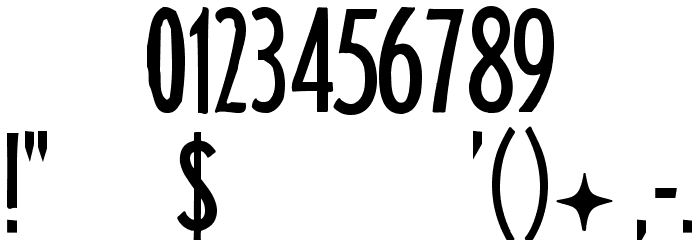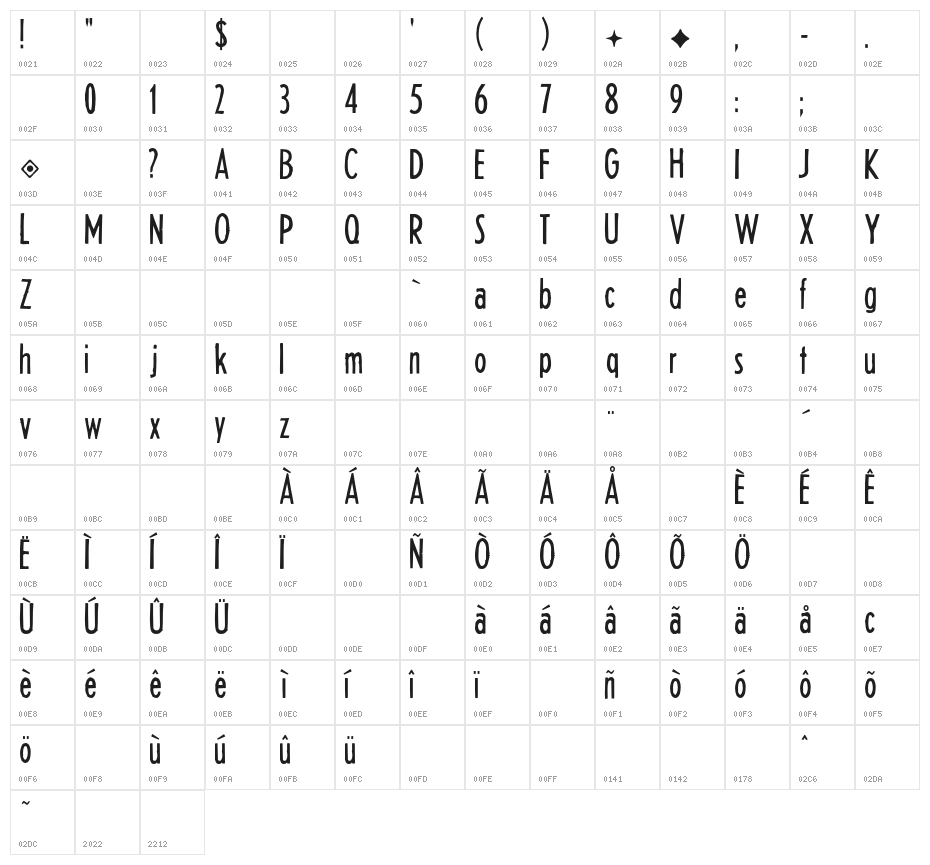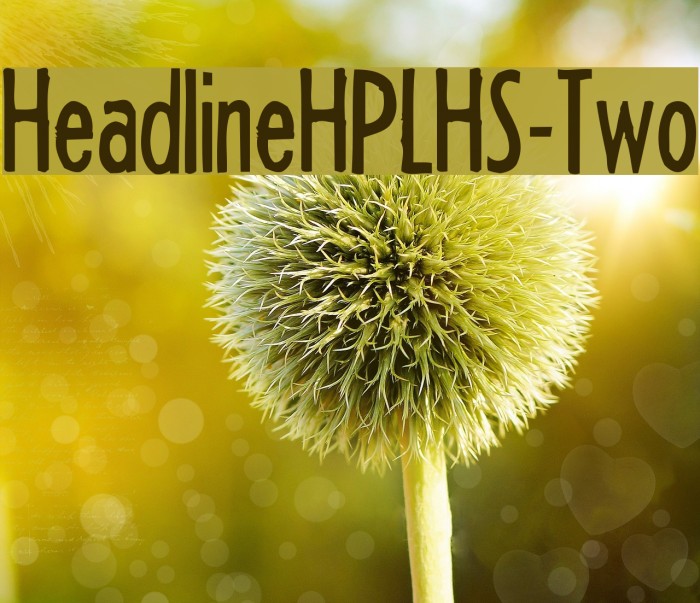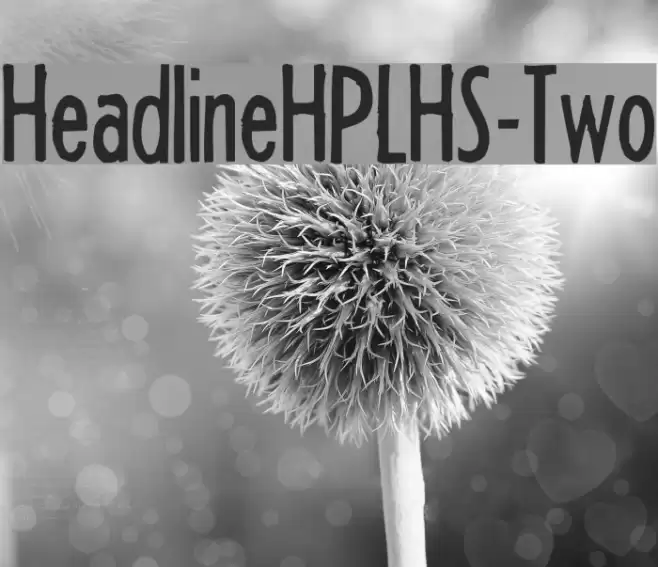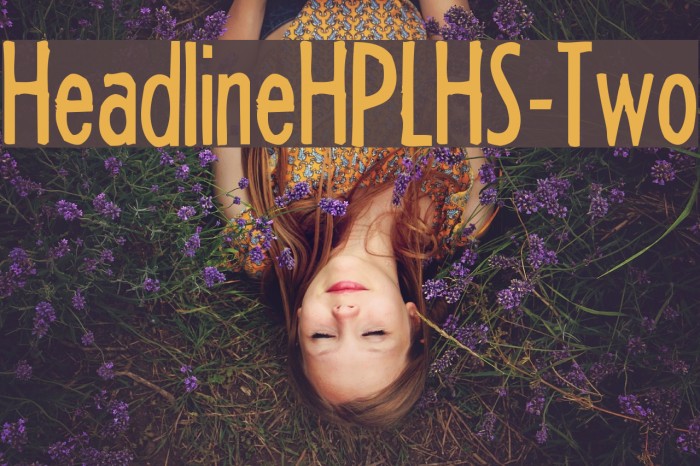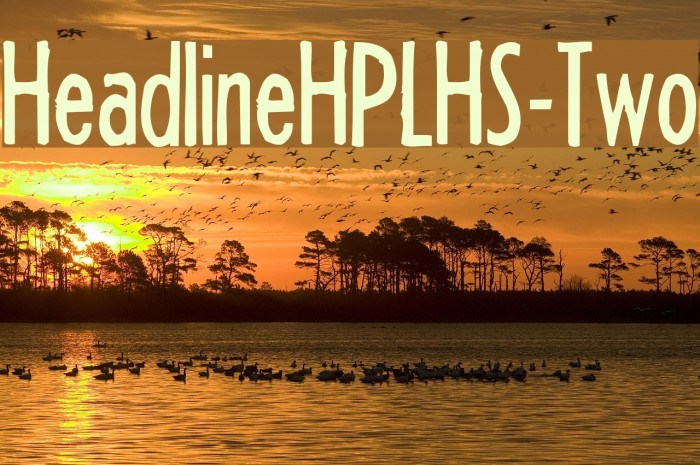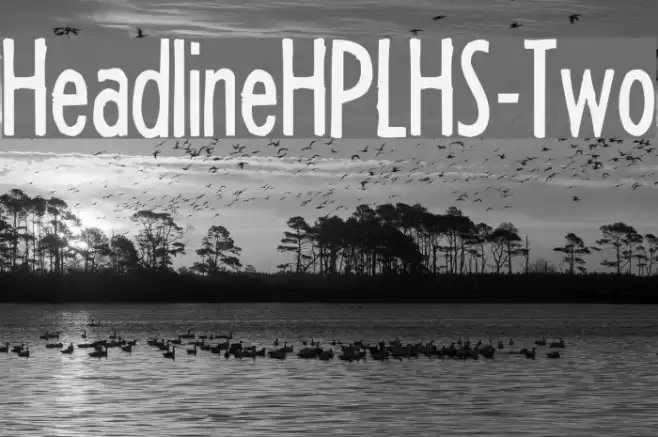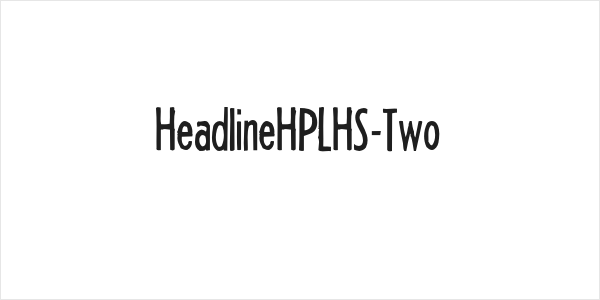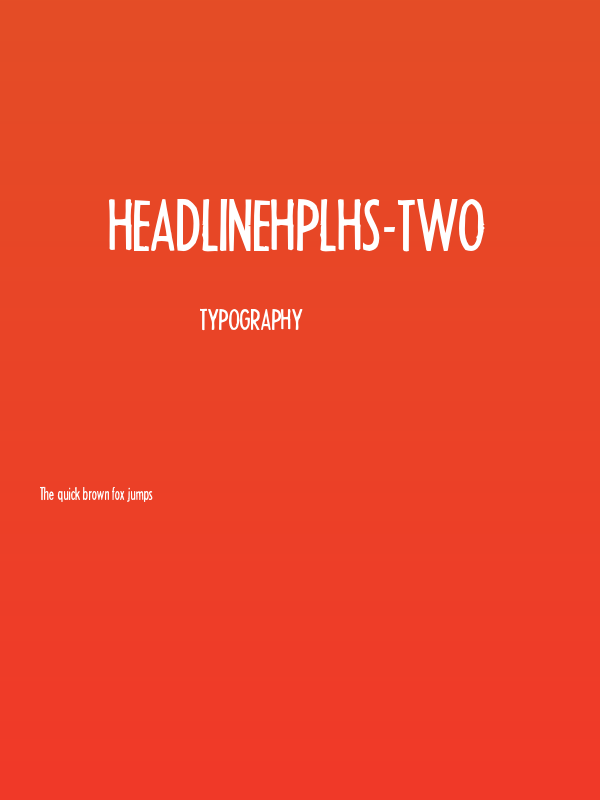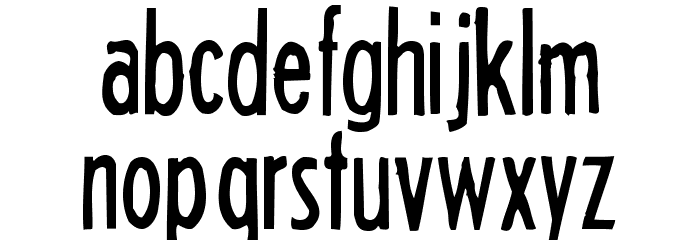
HeadlineHPLHS-Two Font
HeadlineHPLHS-Two Description
This font features a bold and slightly condensed style with a hand-drawn aesthetic. The uppercase letters are tall and narrow, while the lowercase letters maintain a consistent height, creating a cohesive look. The numbers are clear and legible, matching the overall style of the alphabet. Special characters are included, adding versatility for various uses. The strokes are uneven, giving a rustic and organic feel, which adds character and uniqueness to the design. This font is suitable for projects that require a touch of personality and creativity.
| Overall Style | Rustic, Artistic |
| Proposed Projects | Ideal for posters, book covers, creative branding, and artistic projects. |